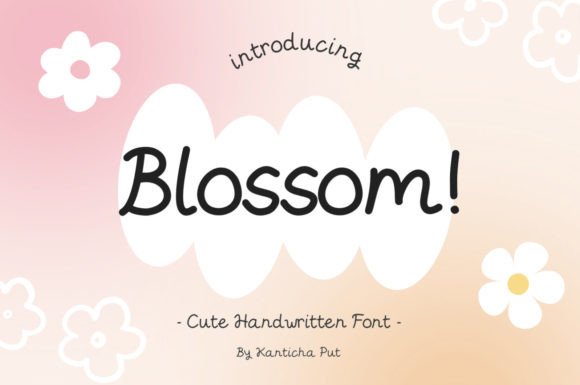
The Blossom Font: A Sweet Addition to Your Design Toolbox
I’ll never forget the time I was working on a project for a client who wanted a whimsical, handwriting-style font to match their brand’s playful personality. I scoured the internet for the perfect typeface, but nothing seemed quite right – until I stumbled upon the Blossom font. ✨ This lovely, handwritten font has since become a staple in my design toolbox, and I’m excited to share its charm with you.
An Honest Review of Blossom Font
So, what makes Blossom font so special? Let’s dive into the good stuff and a few quirks I’ve discovered.
- ✨ Cute and Lovely: Blossom font is perfect for designers, crafters, and creative hobbyists looking for a sweet and charming typeface.
- ✅ Highly Readable: Despite its playful nature, Blossom font remains highly readable, even at smaller sizes.
- 🎨 Versatile: This font is suitable for a wide range of projects, from branding and packaging to invitations and social media graphics.
While Blossom font is an excellent choice for many projects, there are a few things to keep in mind:
- 🤔 Limited Formality: As a handwritten font, Blossom may not be the best choice for projects requiring a high level of formality or professionalism.
- ⚠️ Glyph Limitations: While Blossom font comes with a range of glyphs and OpenType features, it may not have every special character or symbol you need.
The Story Behind Blossom Font
Although the origins of Blossom font are shrouded in mystery, it’s easy to imagine a designer creating this lovely typeface with a passion for handwriting and elegance. Perhaps they were inspired by the beauty of blooming flowers or the whimsy of children’s handwriting. Whatever the story, Blossom font has captured the hearts of designers and crafters alike.
Q: What type of projects is Blossom font best suited for?
Blossom font is perfect for a wide range of projects, including branding, packaging, invitations, social media graphics, and more.